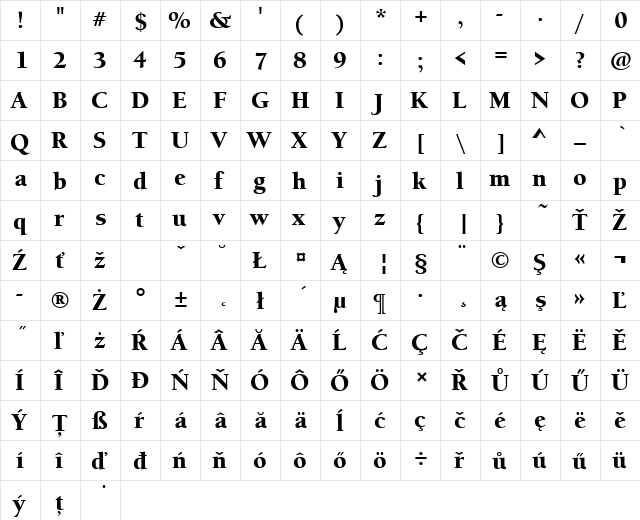
BerkeleyOldStyItcTEEBla Regular
Design Context for BerkeleyOldStyItcTEEBla Typeface
BerkeleyOldStyItcTEEBla offers clean, dependable letterforms without strong stylistic allegiance, making it a practical choice for designers who need flexibility.